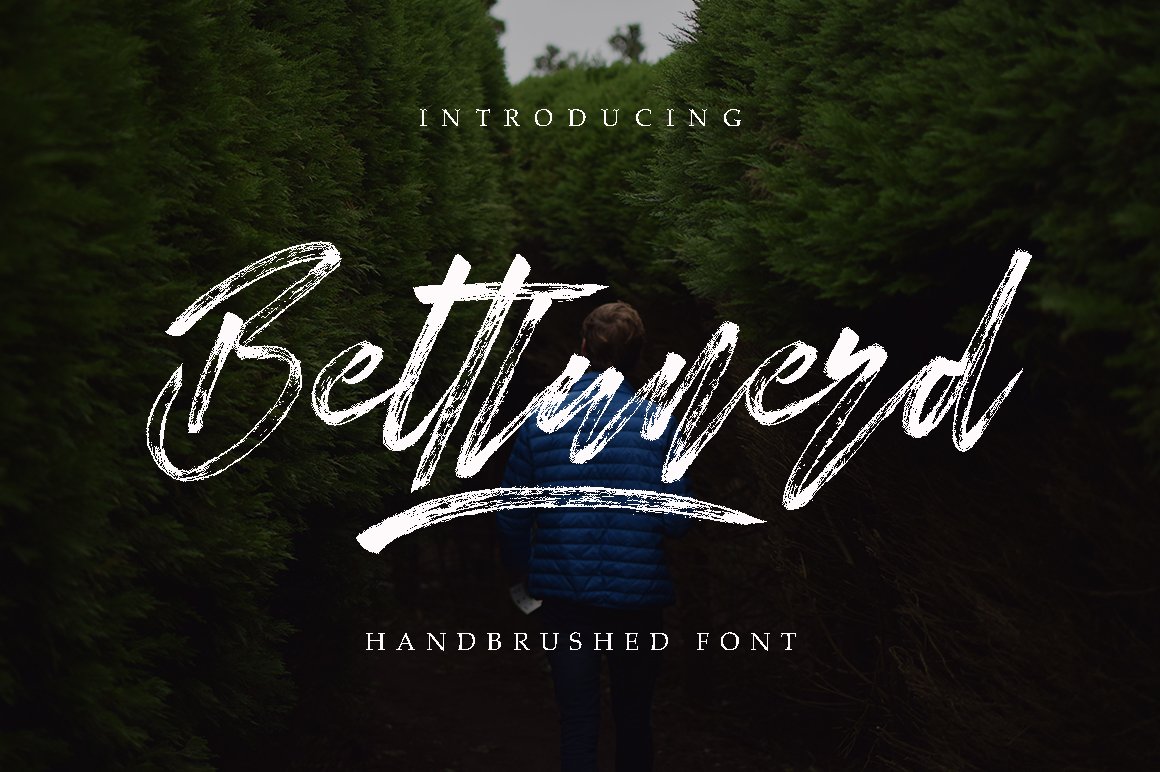
The Perfect Brush Stroke: Unlocking the Potential of Bettlunerd Font
Have you ever been stuck on a design project, struggling to find the perfect font to bring your vision to life? You’re not alone. We’ve all been there – pouring over font options, trying to find that elusive combination of style and functionality. But what if I told you that there’s a font that can change the game for you?
Enter the Bettlunerd Font, a modern brush font designed to add a touch of elegance and sophistication to any project. With its unique blend of style and versatility, Bettlunerd Font is the perfect solution for designers looking to elevate their work and stand out from the crowd.
Whether you’re working on a branding project, a wedding invitation, or a social media campaign, Bettlunerd Font is the ideal choice for adding a personal touch and making your design truly unforgettable.
Bettlunerd Font Key Features
- Unique Characteristics: Bettlunerd Font features a unique blend of modern and vintage elements, with intricate details and ornate flourishes.
- Kerning and Ligatures: The font includes advanced kerning and ligature pairs, ensuring smooth and professional typography.
Bettlunerd Font Review
I recently had the chance to work with the Bettlunerd Font, and I have to say it’s an interesting mix of modern and quirky elements. ✨ One thing that stands out is its unique character set, which adds a touch of personality to any design. The font’s irregularities make it perfect for creating a sense of whimsy and playfulness in branding and advertising materials.
However, I also noticed some limitations that might affect its usability in certain projects. ⚠️ For instance, the font’s bold weight is not as consistent as I’d like, which can make it difficult to read in smaller sizes. Additionally, the font’s lack of a clear categorization (e.g., serif, sans-serif) might make it harder for designers to determine the best use case for Bettlunerd.
Here are some specific pros and cons:
- Unique character set for adding personality to designs ✨
- Irregularities create a sense of whimsy and playfulness ✨
- Lack of clear categorization (e.g., serif, sans-serif) ⚠️
- Inconsistent bold weight ⚠️
- Not ideal for body text or formal documents ⚠️
Overall, I think Bettlunerd Font is a great addition to any designer’s toolkit, but it’s essential to understand its limitations and use it accordingly. With some creative restraint and attention to detail, Bettlunerd can add a touch of magic to your designs.
For best results, use the Bettlunerd font for designs that require a unique, hand-drawn feel. It’s particularly well-suited for:
- Brand logos and identities
- Infographics and data visualizations
- Handwritten-style invitations and announcements